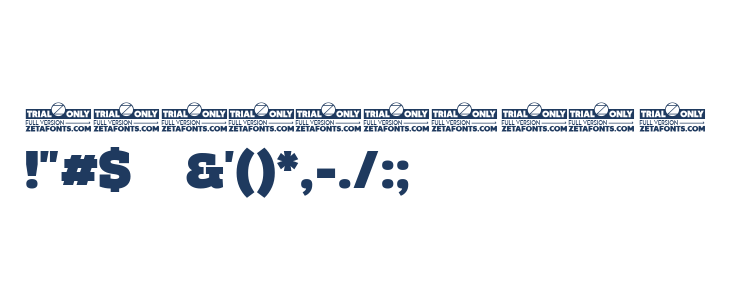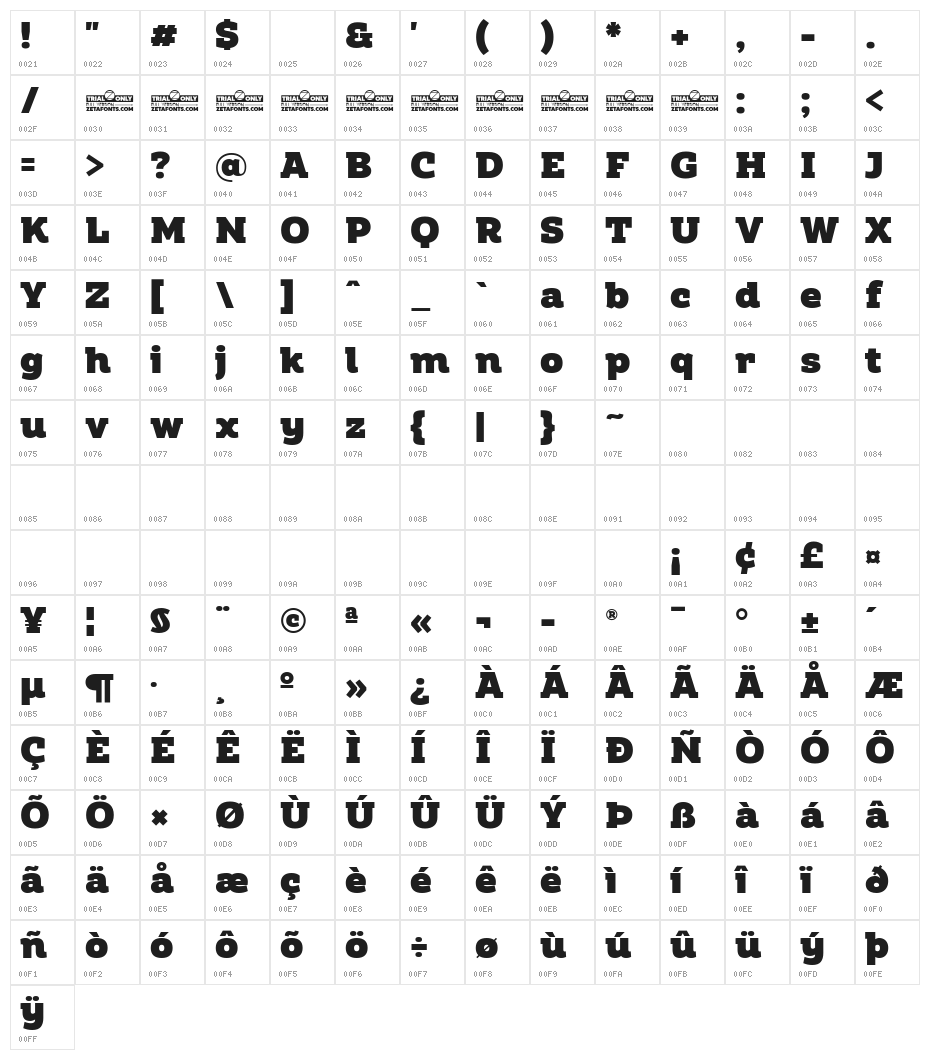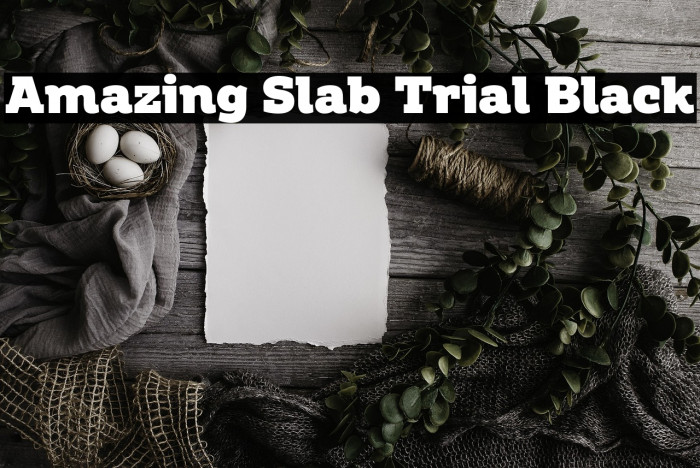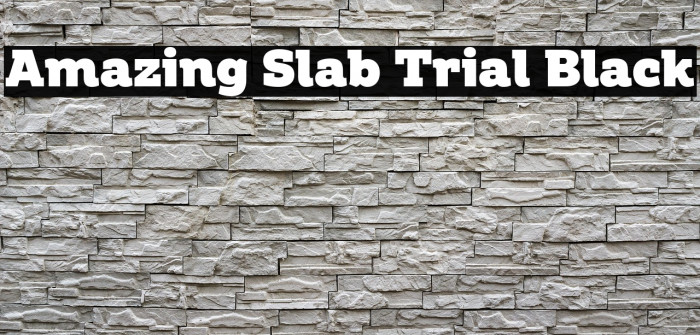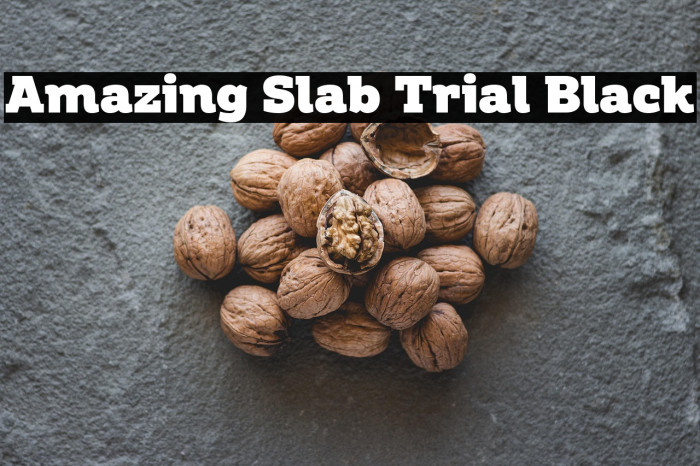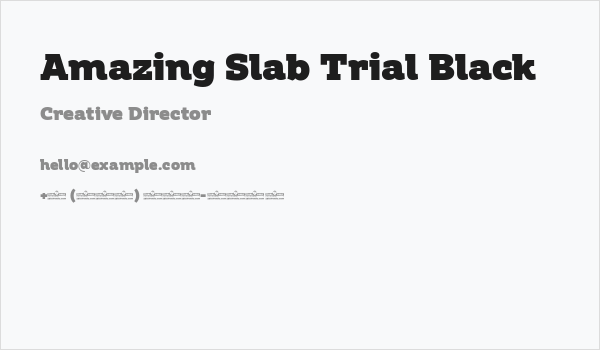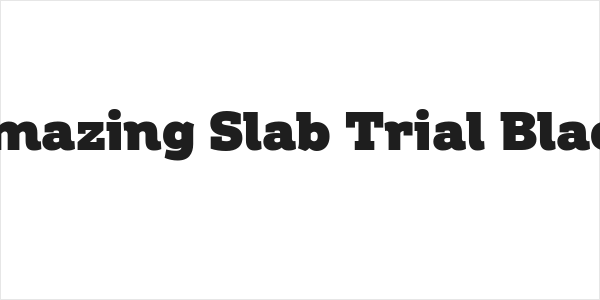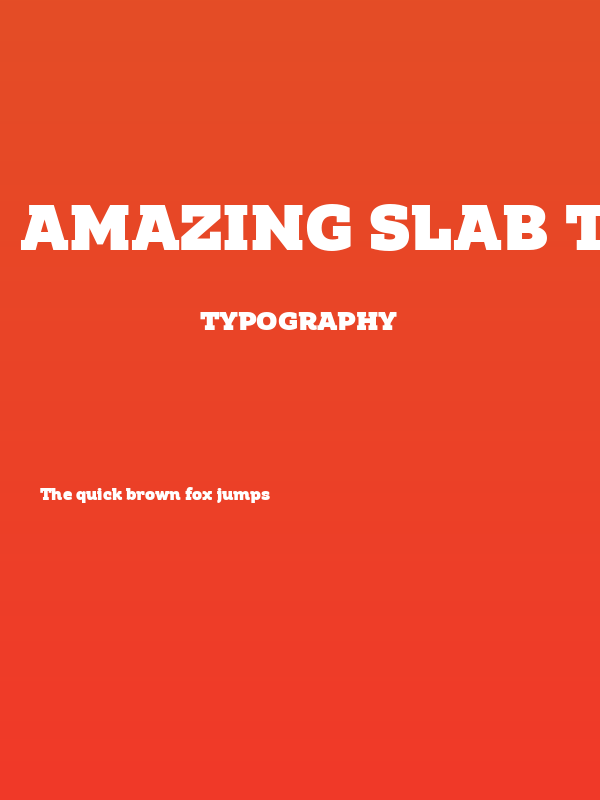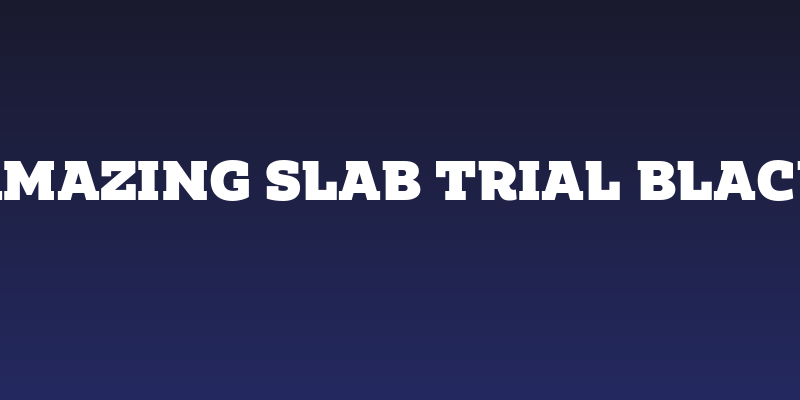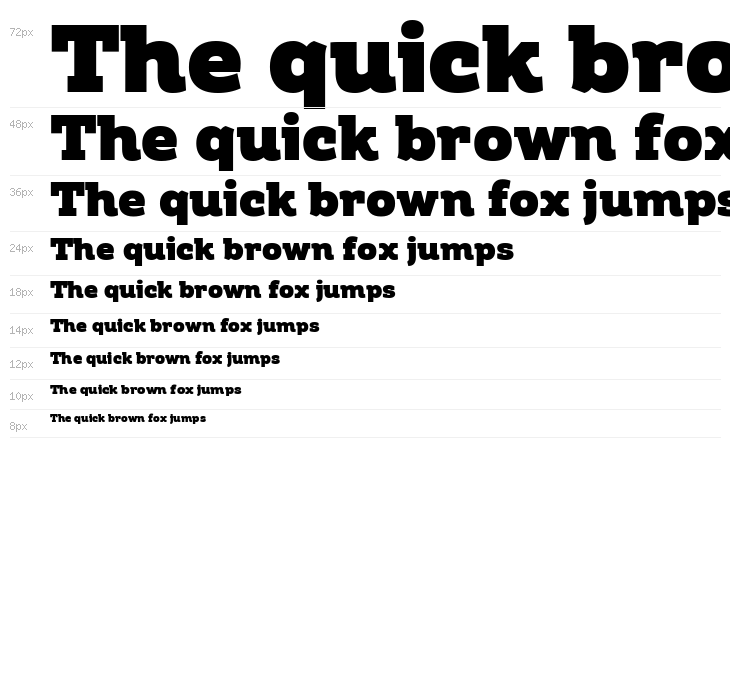
Amazing Slab Trial Black Font
Amazing Slab Trial Black Description
This font features a bold and robust slab serif design, characterized by thick, block-like serifs and a strong presence. The uppercase and lowercase letters are well-proportioned, with a consistent stroke width that conveys a sense of stability and confidence. The numerals and special characters maintain the same boldness, ensuring uniformity across all glyphs. The font's design is both modern and classic, making it versatile for various applications. Its bold weight and slab serifs make it particularly suitable for headlines and display purposes, where it can draw attention and convey a message with authority.
Proposed ProjectsIdeal for branding, headlines, posters, and any project requiring a strong, authoritative typeface.